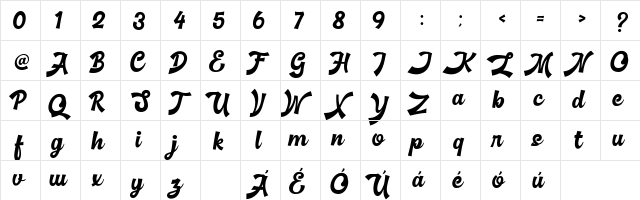
Basuki Script Demo Regular
Design Context for Basuki Script Demo Typeface
Basuki Script Demo brings a calligraphic fluidity to the page — its connecting strokes and expressive curves give it an unmistakably human quality.
Font Pairing: Combine Basuki Script Demo with a simple geometric sans for maximum contrast — the tension between flowing curves and clean structure is a classic typographic pairing.
Pro Tip: Use Basuki Script Demo for short runs of text — names, titles, or taglines. Extended body copy in script faces tires the eye quickly.